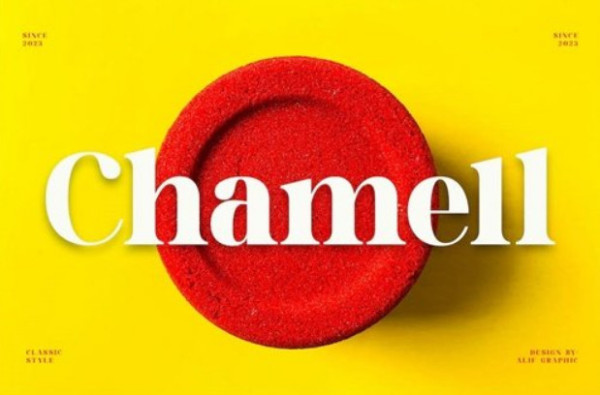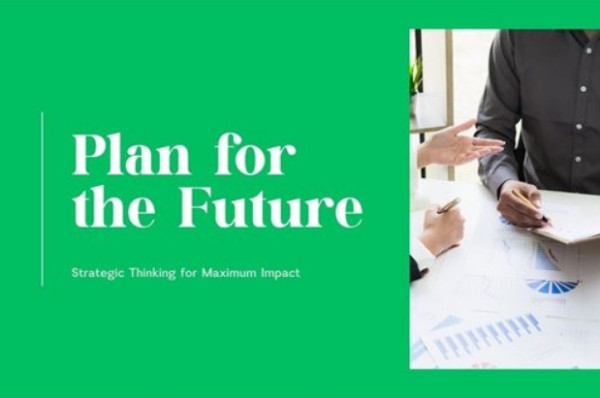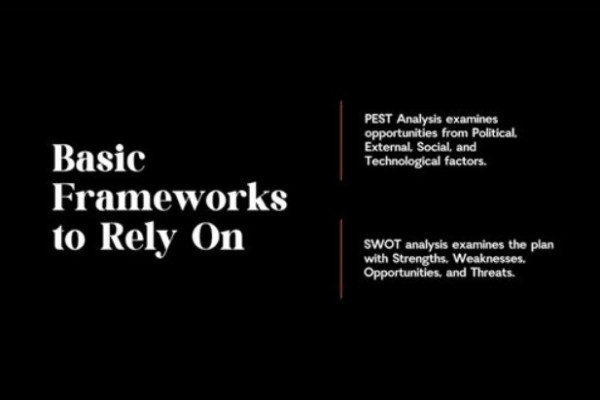
Chamell Font
Chamell Font, a beautiful series of letters is encapsulated in this ‘Chamell’ font. Neat lettering is perfect for writing needs that are modern and pleasing to the eye, there is a Modern impression but still looks Elegant when used for writing. Tidiness in the manufacture of each letter, is our top priority. You can have fun and be creative using this font product we made, because the results will definitely be very satisfying.